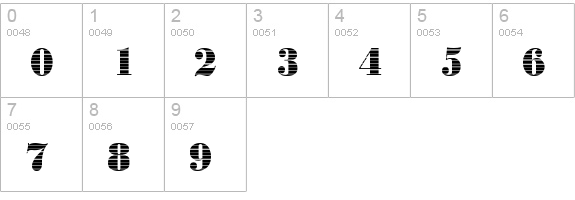
BodoniInkjet2-Regular Font Details
BodoniInkjet2-Regular is the standard, neutral variant in the BodoniInkjet2 typeface family \xE2\x80\x94 well suited to general body text, paragraphs, and standard typographic work.
Introducing BodoniInkjet2-Regular font, a modern and stylish typeface that exudes elegance and sophistication. This font beautifully combines the classic Bodoni style with a contemporary twist, making it perfect for various design projects such as branding, advertising, and editorial design. What sets BodoniInkjet2-Regular apart is its unique inkjet-inspired texture, adding a touch of artistic flair to your creations. The sharp serifs and clean lines of this font make it highly versatile and suitable for both print and digital applications. And the best part? BodoniInkjet2-Regular is available for free download at FontsMarket.com. So go ahead and elevate your designs with this exquisite font without breaking the bank. Download now and unleash your creativity with BodoniInkjet2-Regular!